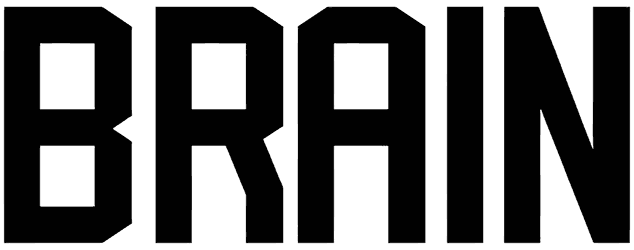
Brain Font
There is a wide variety of sans-serif fonts that can be used to create a casual feel in your designs. But if you’re looking for something different, try Brain. The hexagonal structure has created a beautiful geometric al…
There is a wide variety of sans-serif fonts that can be used to create a casual feel in your designs. But if you’re looking for something different, try Brain. The hexagonal structure has created a beautiful geometric alternative to its edges, which is perfect for working with short titles and large-sized texts.
The versatile nature of this geometric font has made the lack of small letters not visible in it, and it can well meet the needs of design in various projects.